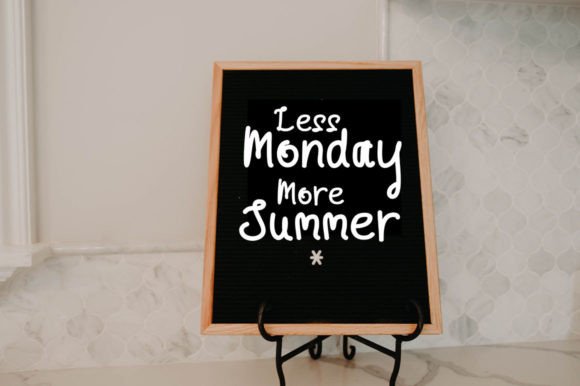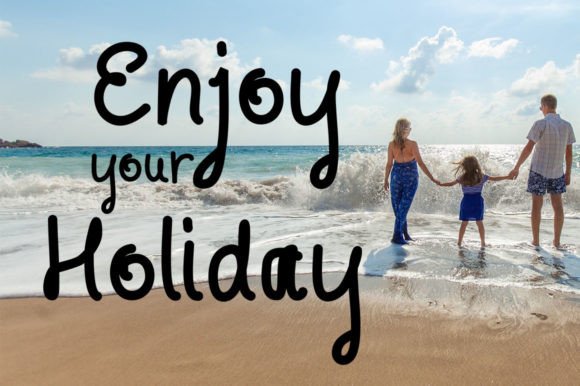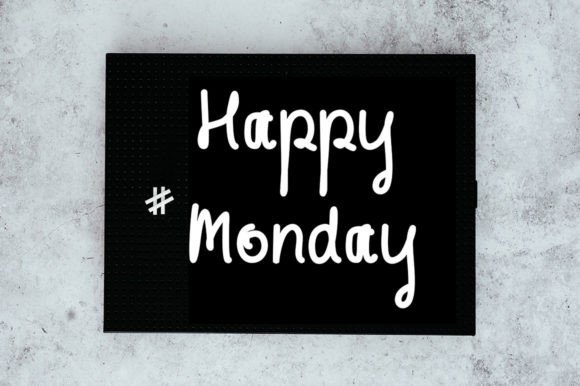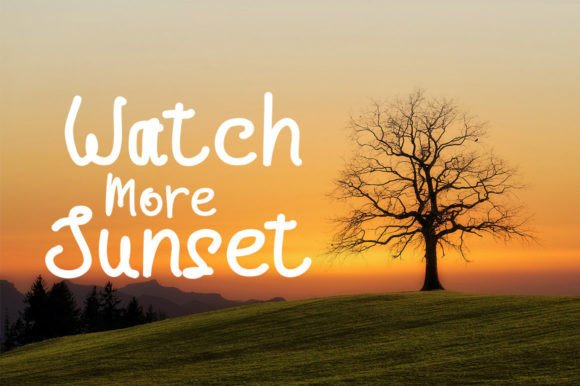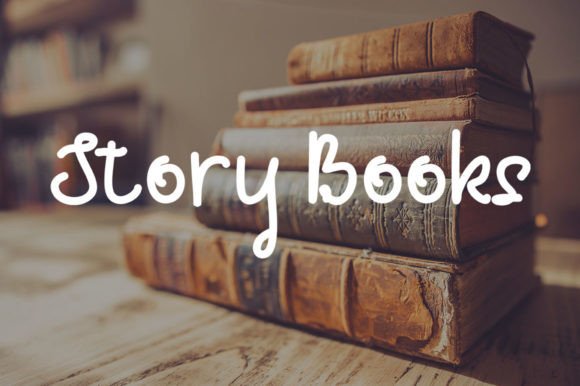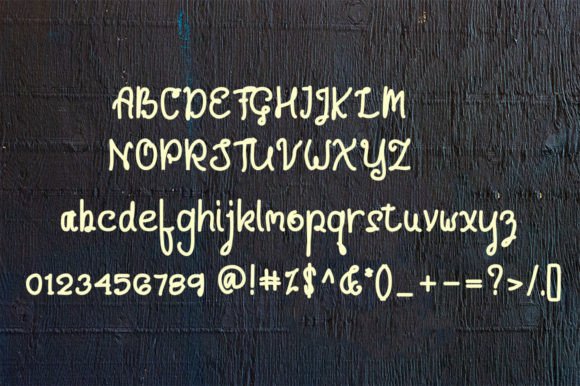
Happy Birthday Font: The Perfect Addition to Your Party Decorations and Designs
Are you looking for a font that can add a touch of elegance and whimsy to your party decorations, invitations, and gifts? Look no further than the Happy Birthday font! This modern handwritten font is perfect for parties, invitations, gifts, and more. In this article, we’ll explore the features and benefits of the Happy Birthday font and how you can use it to create stunning designs.
What is Happy Birthday Font?
Happy Birthday is a modern handwritten font with an irregular baseline, giving it a unique and trendy look. The font is designed to be feminine and elegant, making it perfect for a variety of design projects. Whether you’re creating wedding invitations, thank you cards, quotes, greeting cards, logos, business cards, or more, Happy Birthday is the perfect choice.
Features of Happy Birthday Font
The Happy Birthday font has several features that make it a great addition to your design toolkit. Some of its key features include:
• Modern Handwritten Look: The Happy Birthday font has a modern handwritten look that is perfect for creating elegant and sophisticated designs.
• Irregular Baseline: The font’s irregular baseline gives it a unique and whimsical touch, making it perfect for adding a personal touch to your designs.
• Feminine and Elegant: The Happy Birthday font is designed to be feminine and elegant, making it perfect for wedding invitations, thank you cards, and other designs where a touch of elegance is needed.
• Trendy: The font’s modern look makes it perfect for designers who want to create trendy and stylish designs.
Uses of Happy Birthday Font
The Happy Birthday font is versatile and can be used for a variety of design projects. Some of the most popular uses of the font include:
• Wedding Invitations: The Happy Birthday font is perfect for creating elegant and sophisticated wedding invitations.
• Thank You Cards: The font’s feminine and elegant look makes it perfect for creating beautiful thank you cards.
• Quotes: The Happy Birthday font is perfect for creating inspirational quotes and posters.
• Greeting Cards: The font’s modern look makes it perfect for creating stylish greeting cards for any occasion.
• Logos: The Happy Birthday font can be used to create unique and stylish logos for businesses and brands.
• Business Cards: The font’s elegant look makes it perfect for creating professional business cards.
Perfect for Ink and Watercolor Designs
The Happy Birthday font is perfect for use in ink or watercolor designs. The font’s irregular baseline and handwritten look make it perfect for adding a personal touch to your designs. Whether you’re creating beautiful ink illustrations or watercolor paintings, the Happy Birthday font is the perfect addition to your design toolkit.
Tips for Using Happy Birthday Font
Here are some tips for using the Happy Birthday font in your designs:
• Use it with Ink or Watercolor: The Happy Birthday font is perfect for use in ink or watercolor designs. Try pairing it with beautiful ink illustrations or watercolor paintings for a unique and stylish look.
• Experiment with Colors: The font’s elegant look makes it perfect for experimenting with different colors and textures. Try pairing it with bold and bright colors for a trendy look or soft and pastel colors for a more elegant look.
• Use it for Titles and Headings: The Happy Birthday font is perfect for use in titles and headings. Try using it to add a touch of elegance and whimsy to your designs.
Font Name Happy Birthday Font
Author asyitype6
The Happy Birthday font is a beautiful and versatile font that is perfect for designers and crafters. Its modern handwritten look, irregular baseline, and feminine and elegant style make it perfect for a variety of design projects. Whether you’re creating wedding invitations, thank you cards, quotes, greeting cards, logos, business cards, or more, the Happy Birthday font is the perfect choice. So why not give it a try and add a touch of elegance and whimsy to your designs?